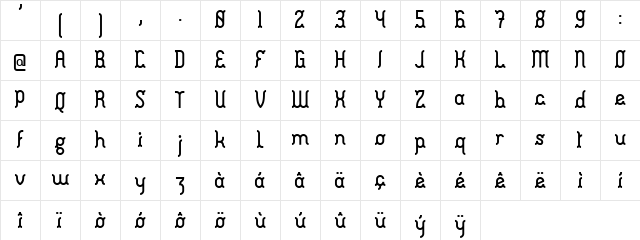
Fabrik Fabrik Free Font
Fabrik Fabrik
Style: Fabrik
Foundry: Beno￿t Sj￿holm
Designer: Beno￿t Sj￿holm
Design Context for Fabrik
Fabrik is a composed and adaptable typeface that performs quietly and consistently across a wide range of design contexts.
Who designed the Fabrik Fabrik font?